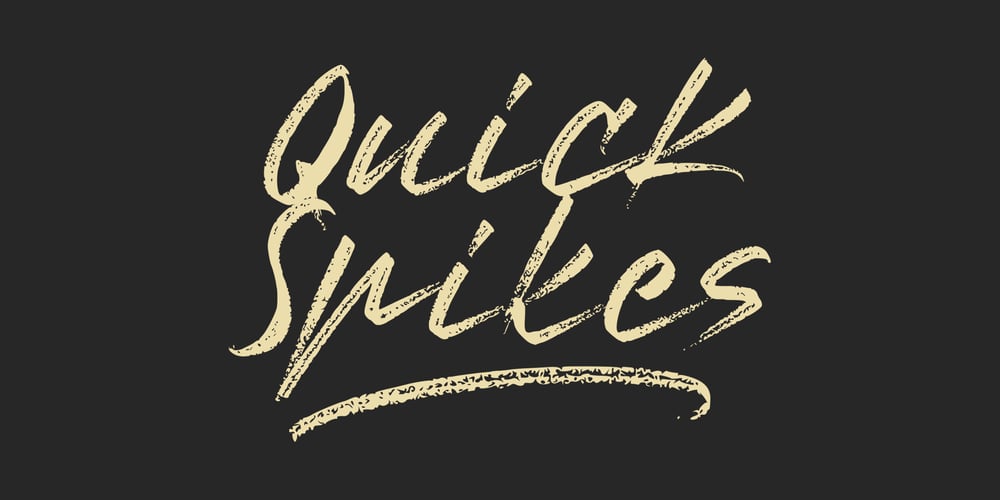
Quick Spikes Font Family was designed by Winarno, Eko Kurniawan and published by Enbe Studio. Quick Spikes contains 1 styles and family package options. Quick Spikes brush font with a strong texture can add a unique and artistic touch to any design. It mimics the brisk strokes of a paintbrush and often conveys a sense of energy and emotion. This style of font is perfect for projects that require a handcrafted feel, such as logos, promotional materials, or any artistic endeavor that benefits from a personal touch. The textured effect gives depth and character, making the font stand out and catch the viewer’s eye.Have a great day!:)